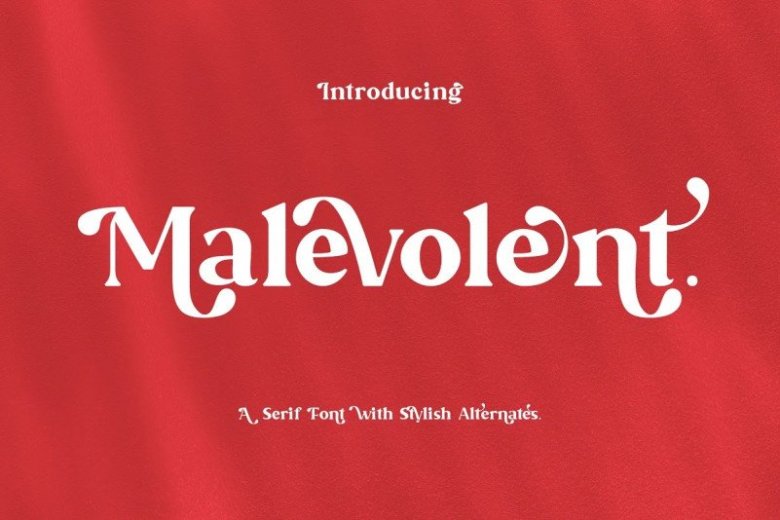
Malevolent Font
Malevolent Serif Font is a vintage high contrast serif typeface with swashes. The stylistic alternates and ligatures make this font event more unique and stands from the crowd. It’s a great font for fashion, apparel projects, signature, album cover, logo, branding, magazine, social media, & advertisements, but also works great for other projects.